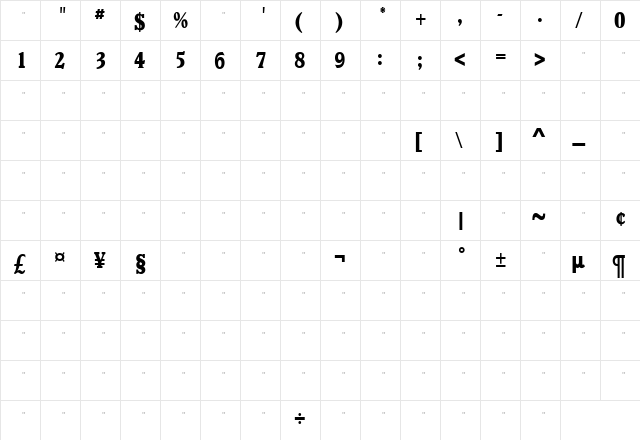
VeroneseExtraBoldCondensedTab Medium Font Preview
Design Context for VeroneseExtraBoldCondensedTab Typeface
VeroneseExtraBoldCondensedTab takes a measured approach to typography — its balanced proportions and neutral character make it a reliable workhorse for both digital and print work. The heavy weight commands attention and anchors typographic hierarchies. Its narrow stance lets it pack a punch even in space-constrained designs.